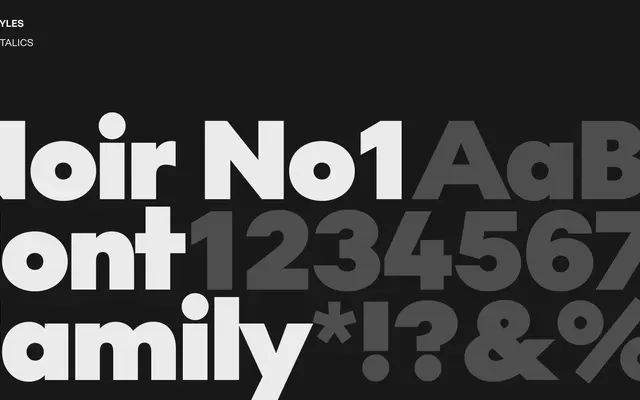
Noir No1 specimen from Playtype
A display serif from Playtype drawing on the dramatic visual language of noir cinema for editorial and branding use.
Named and framed around the cinematic world of film noir, this typeface carries an air of tension and drama suited to headlines, posters and editorial layouts. The name and positioning suggest high contrast and a strong typographic personality rather than workhouse versatility. Little technical detail is available from the page copy, but the thematic framing points clearly toward expressive display use.
The name and cinematic framing suggest a dramatic, high-contrast display serif in the noir tradition, likely with strong contrast and editorial character suited to headlines and branding.